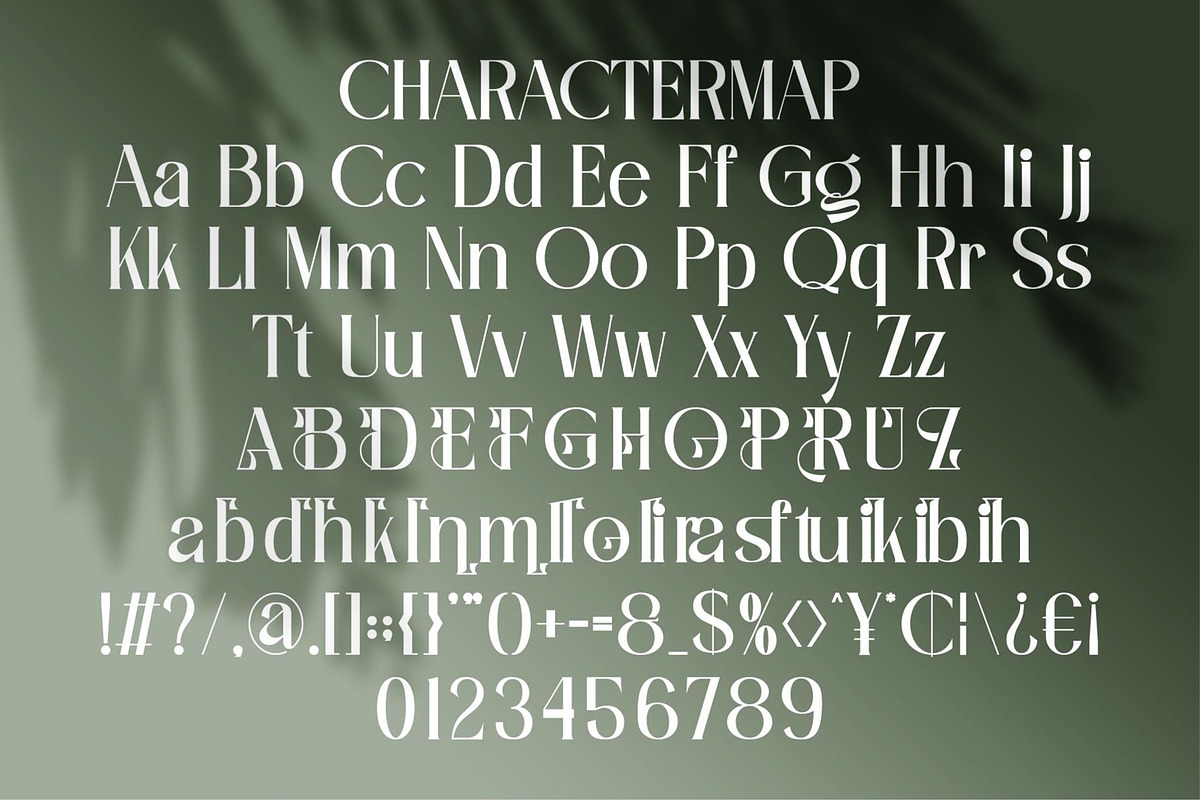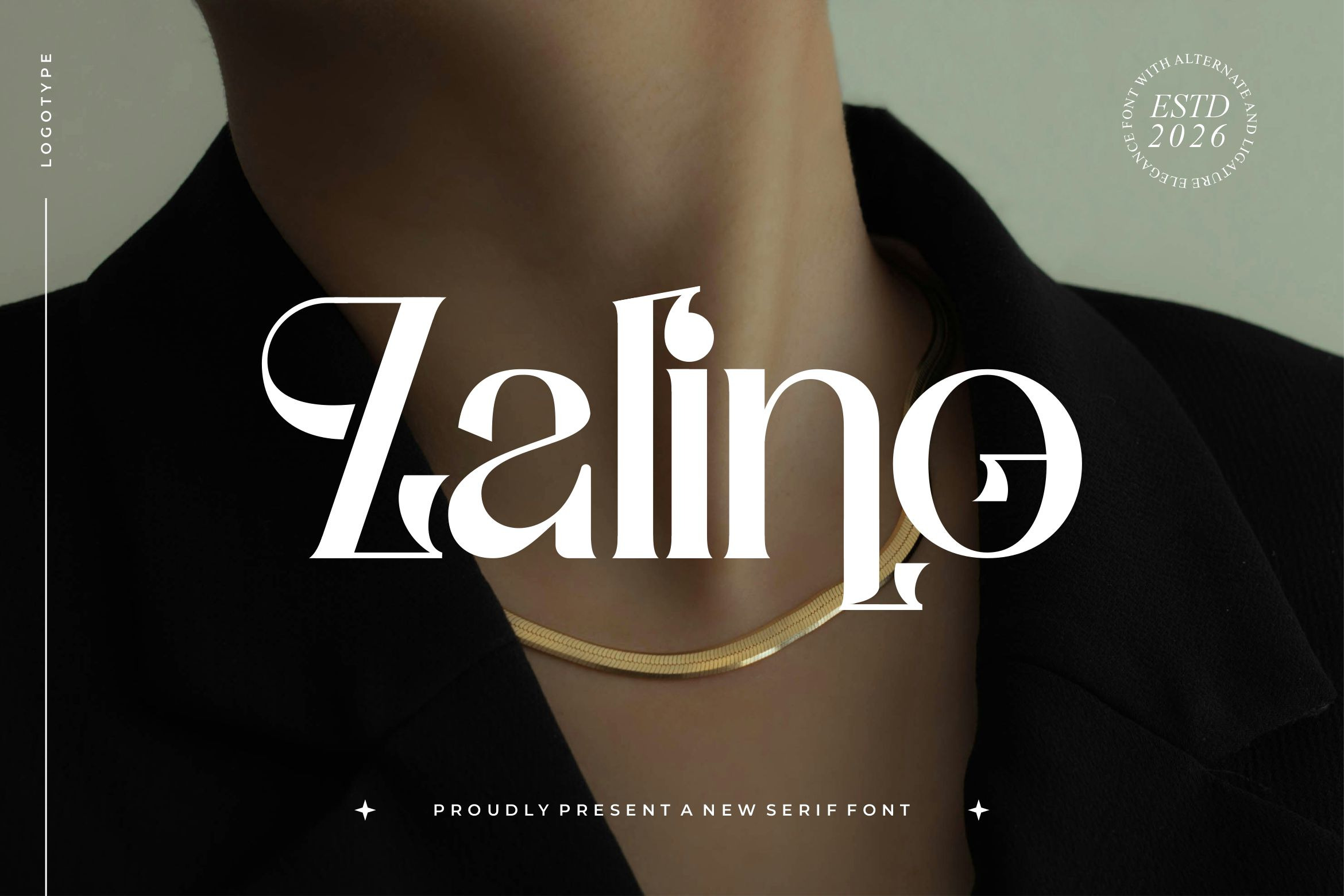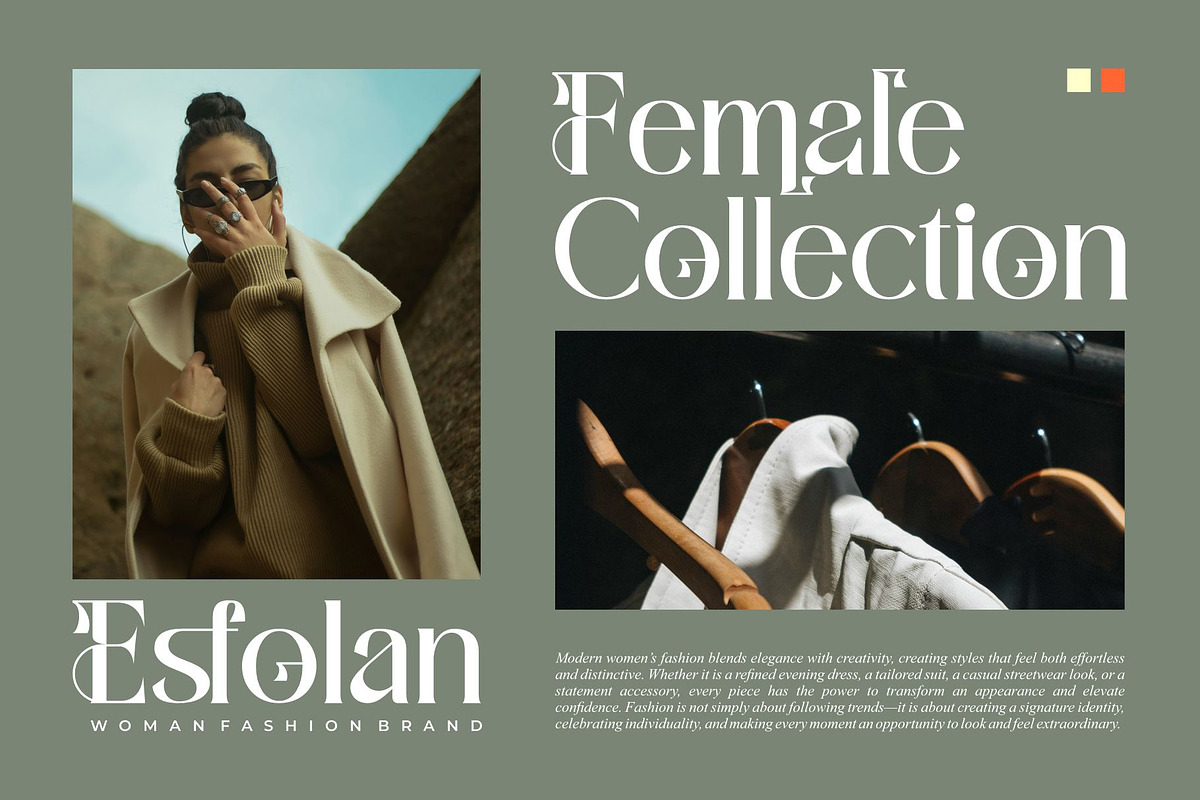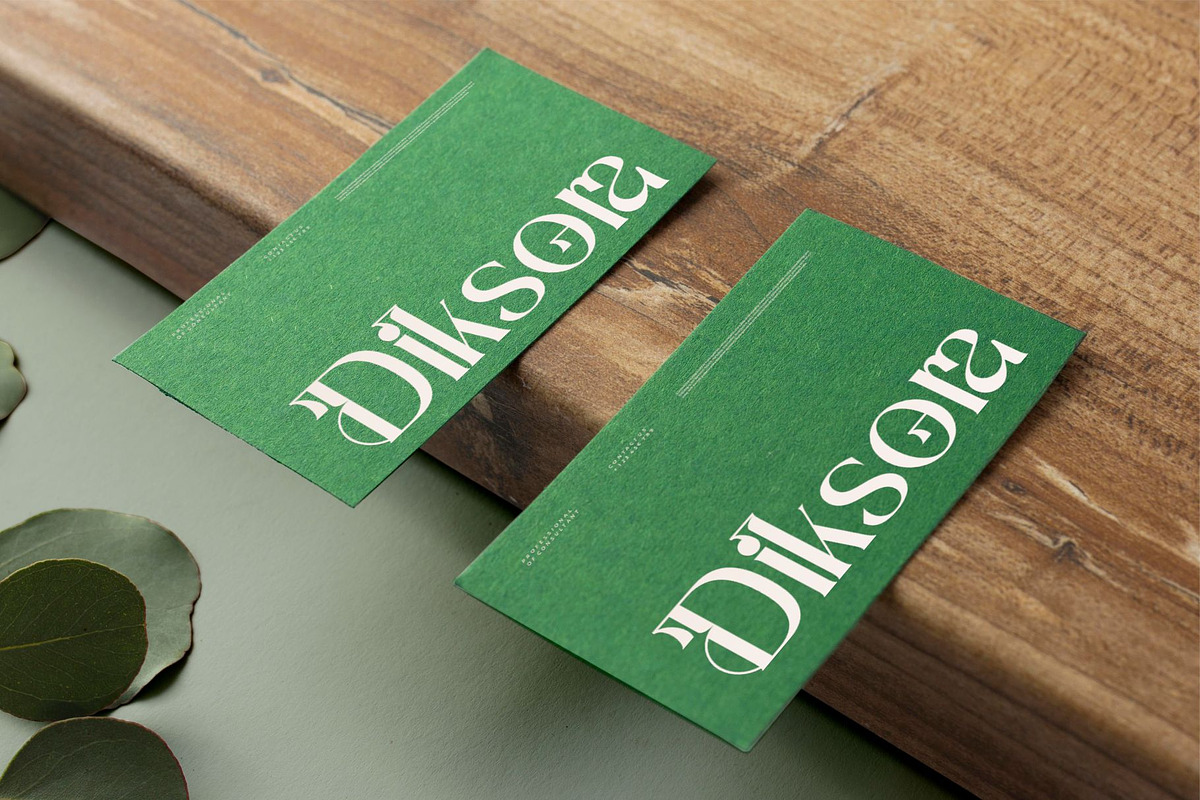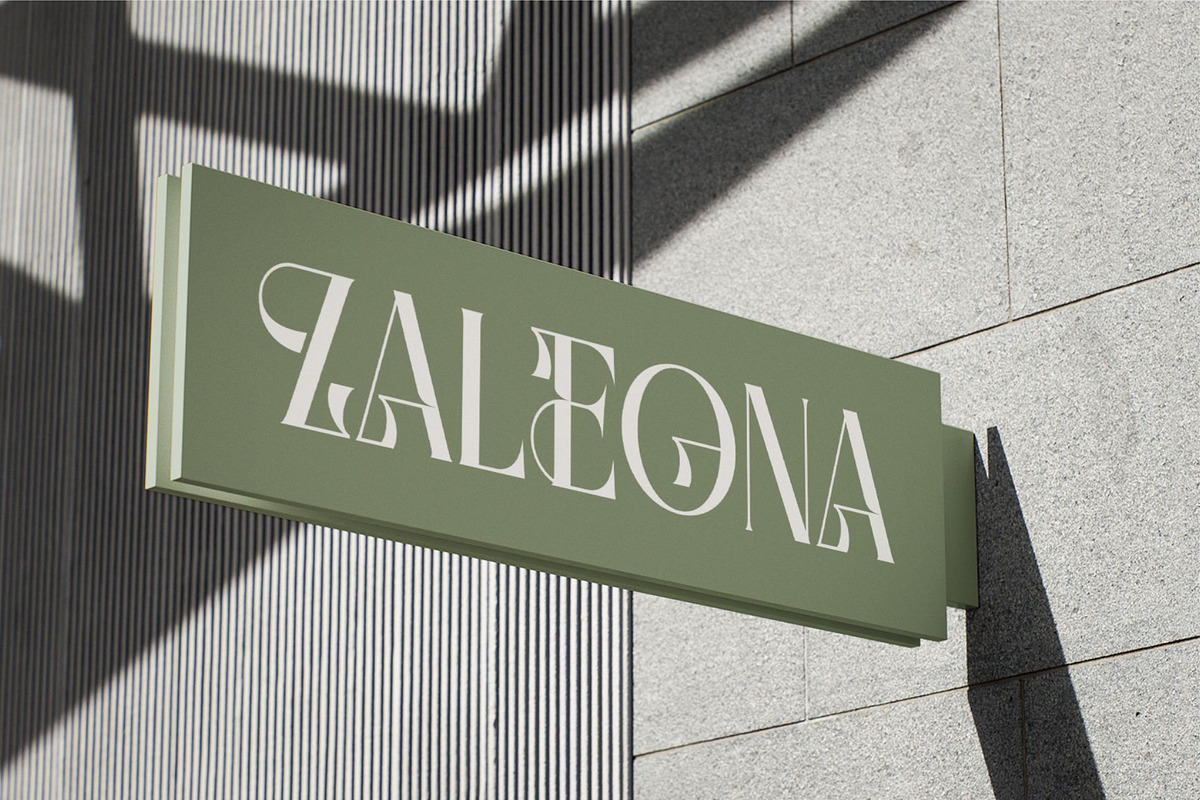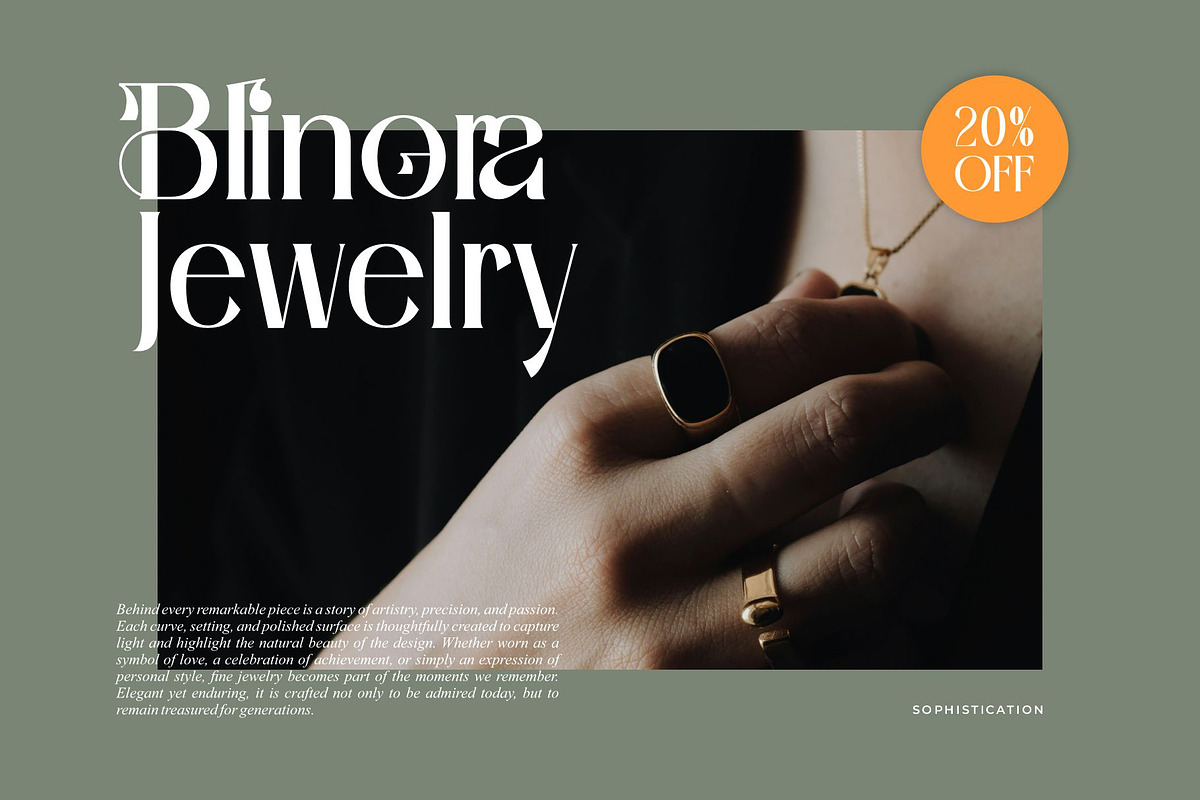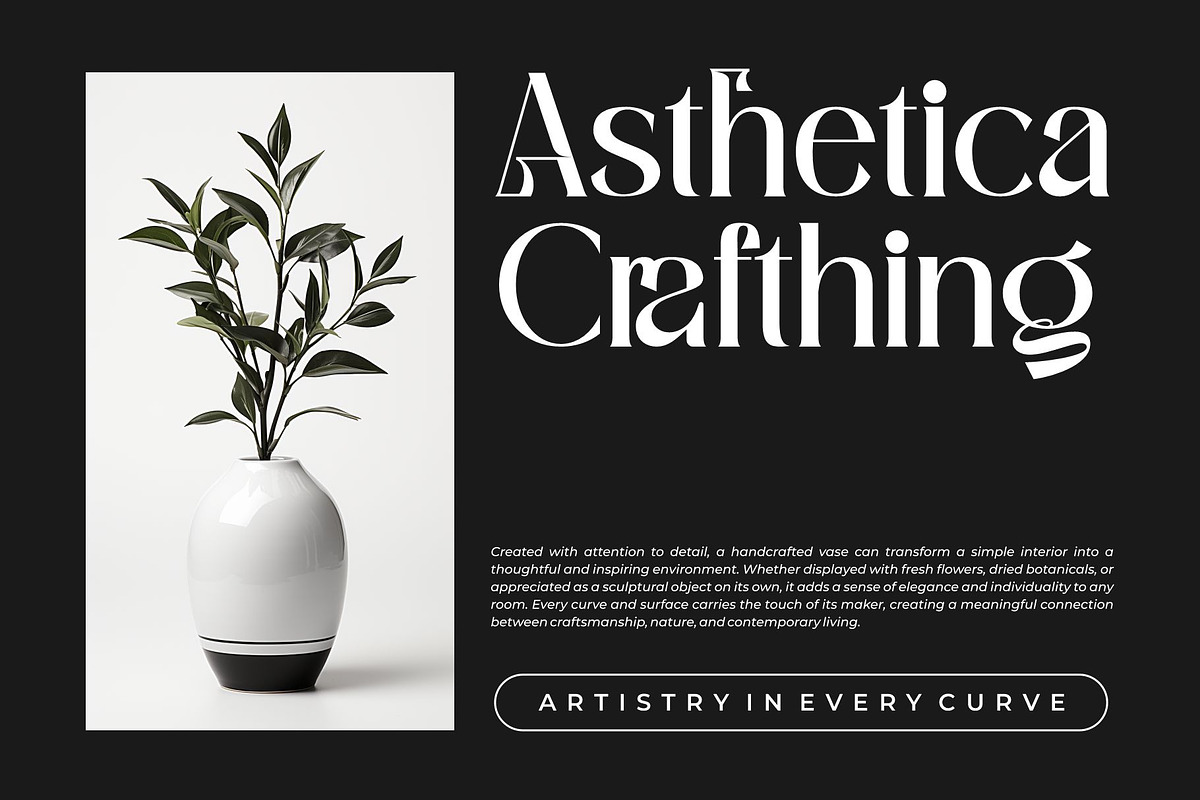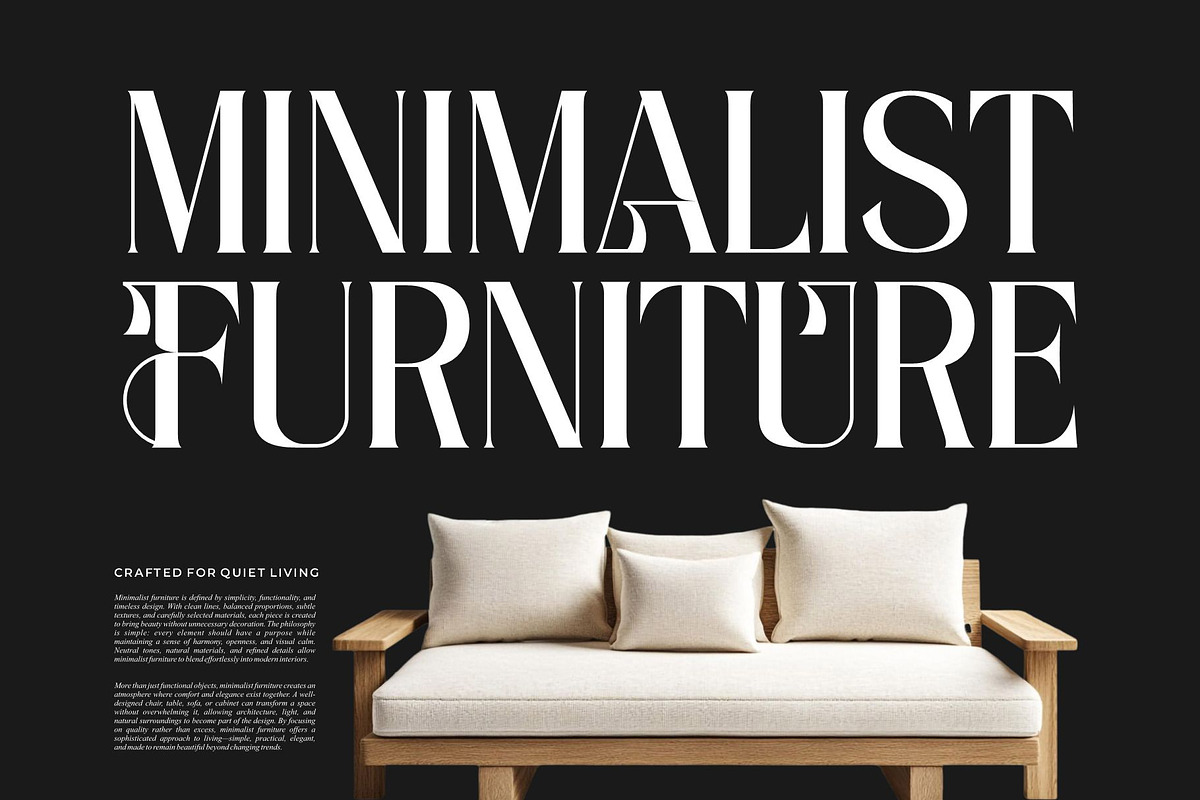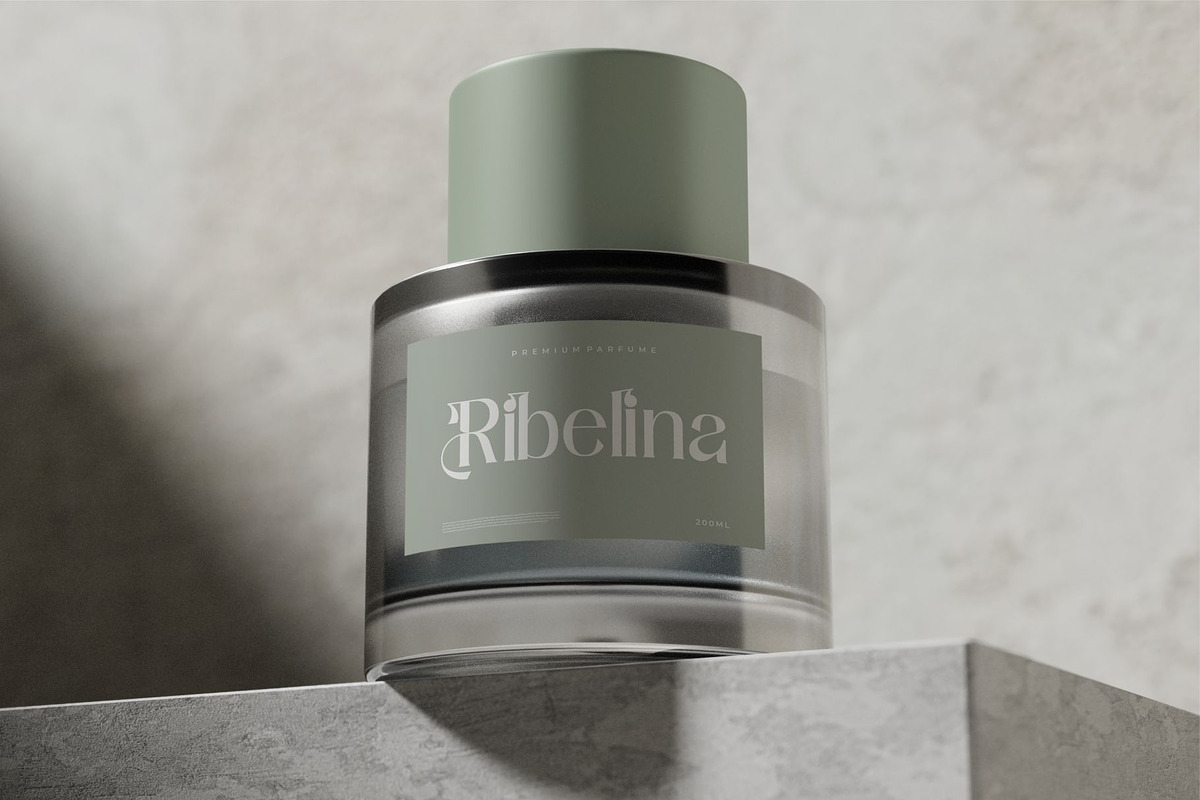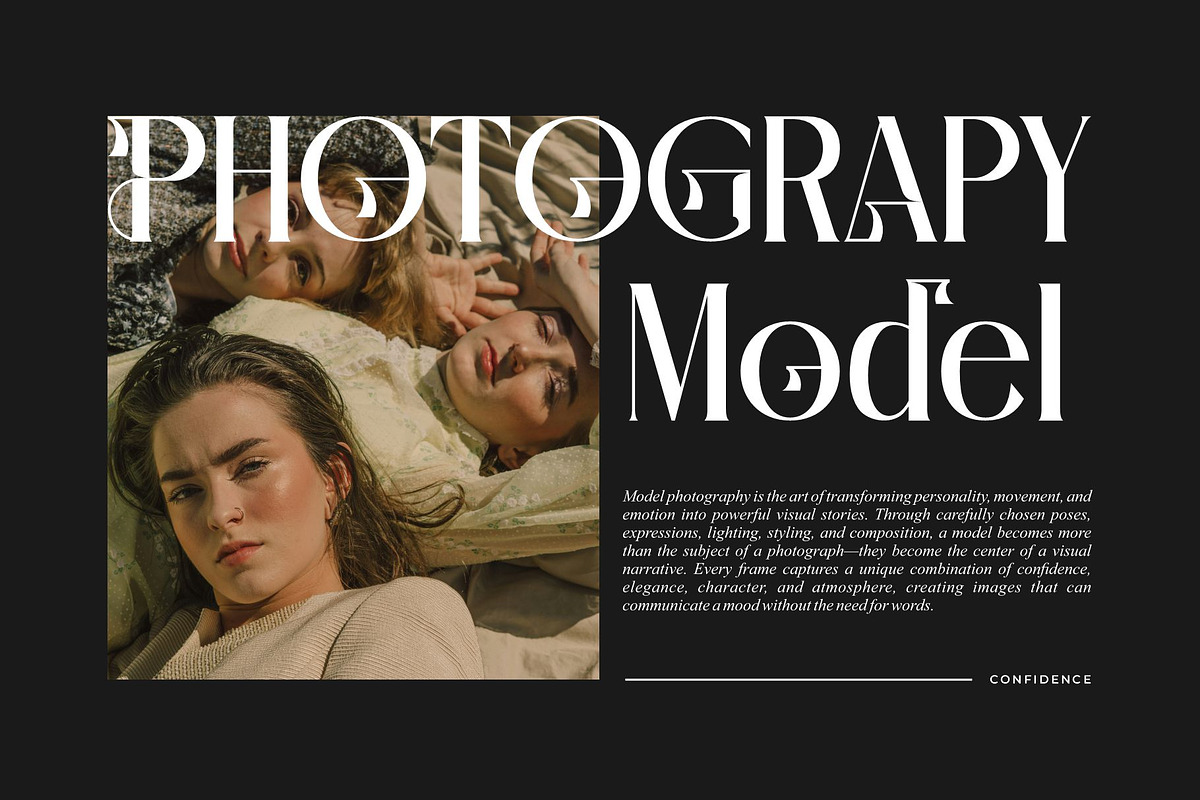
Zalino || Modern Classy Serif Font
Zalino Serif is a elegant and classy font type for all branding and logo designs. This elegant and classy Serif font has a beautiful character. This font is suitable for invitation card designs, cool logos, movie titles, movie names, business cards, book titles, brand names, and various other designs. Zalino Serif is a smooth serif font that exudes sophistication and the moment. Its stylish ligatures make this font a perfect partner for any project.